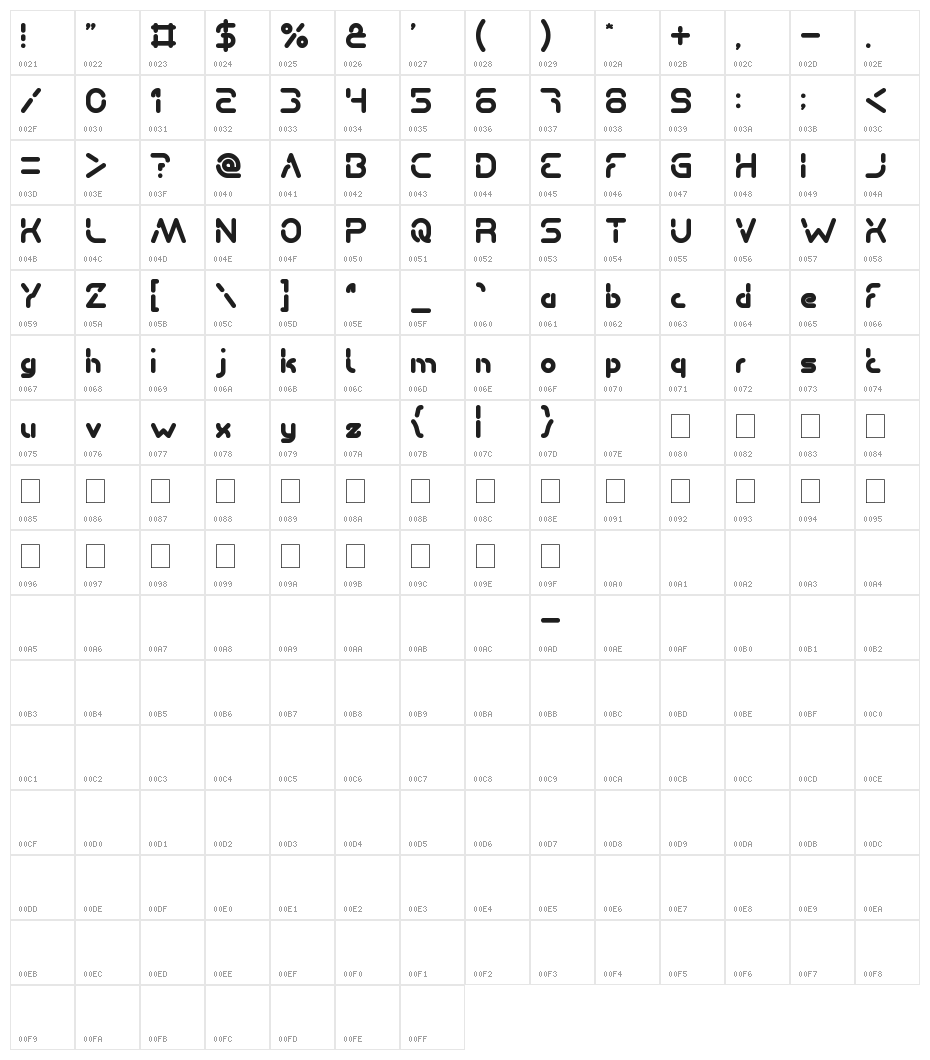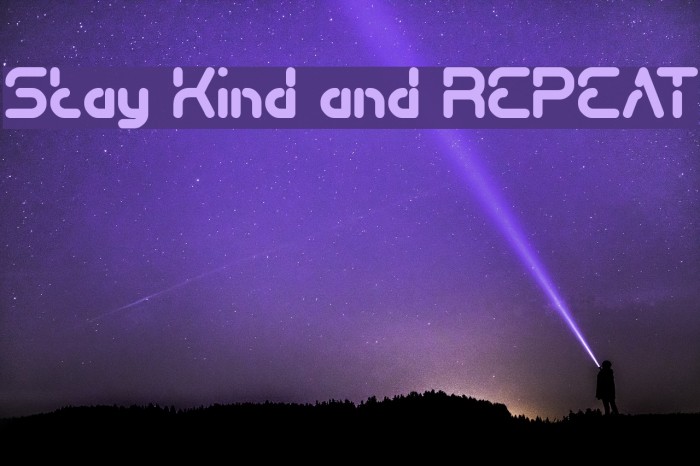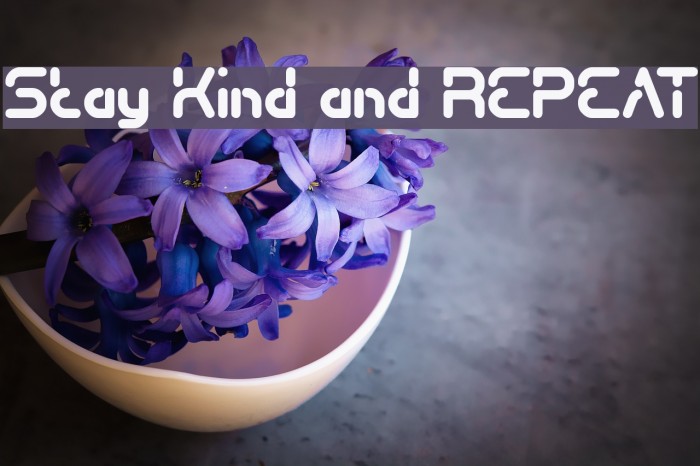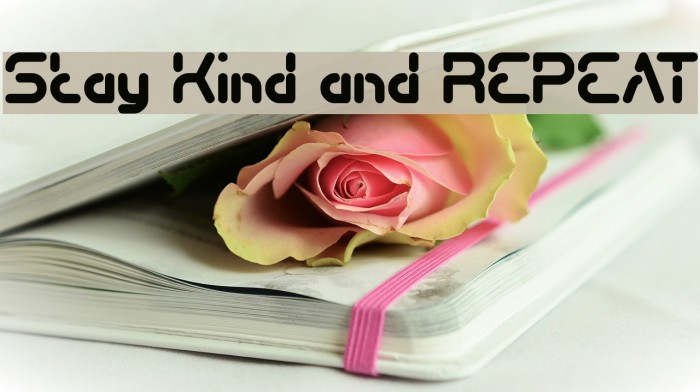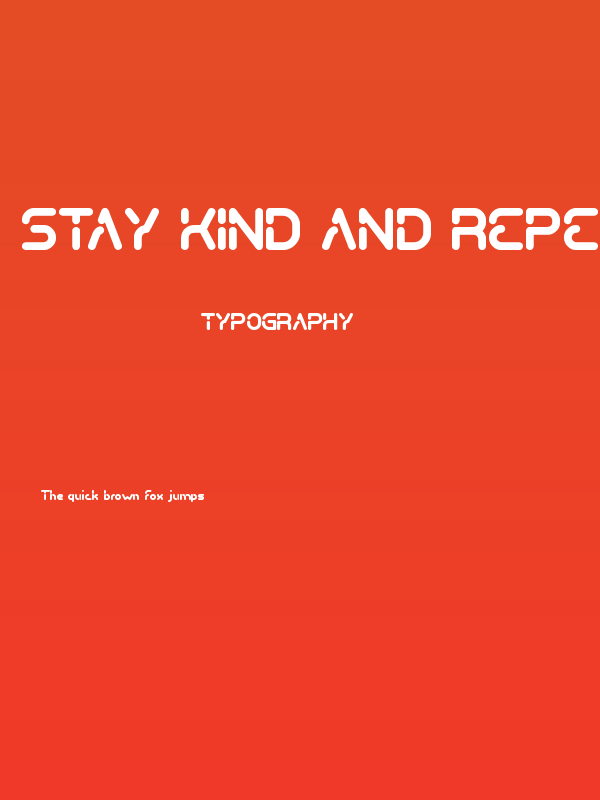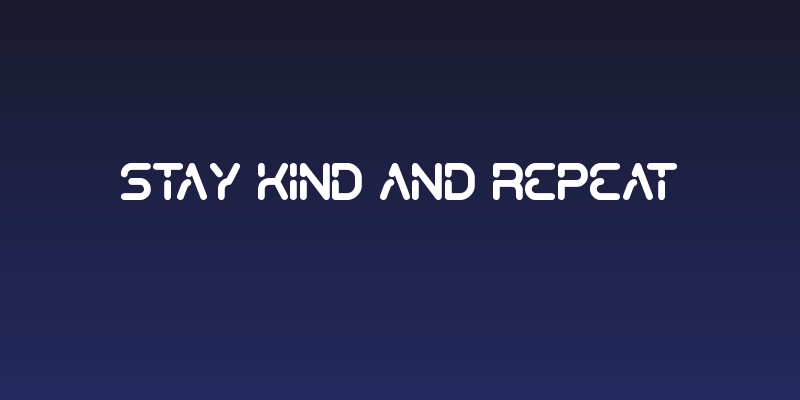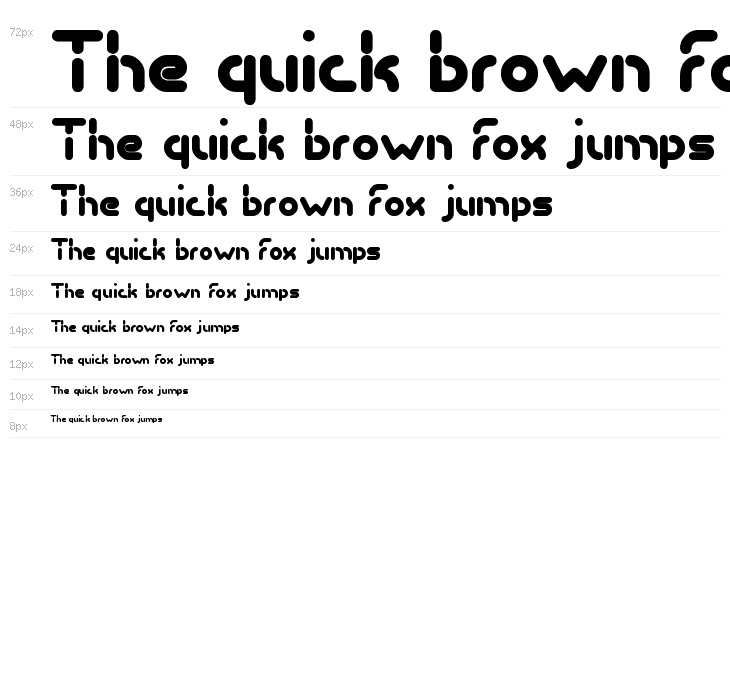
Stay Kind and REPEAT Font
Stay Kind and REPEAT Description
This font features a futuristic and geometric design with rounded edges and a bold presence. The characters are constructed with a unique blend of solid and open spaces, creating a modern and dynamic appearance. The uppercase and lowercase letters maintain a consistent style, with a focus on symmetry and balance. Numbers and special characters follow the same design principles, ensuring a cohesive look across all elements. The font's distinct style makes it suitable for projects that require a contemporary and eye-catching aesthetic.
Proposed ProjectsIdeal for tech branding, modern posters, futuristic UI designs, and innovative product packaging.